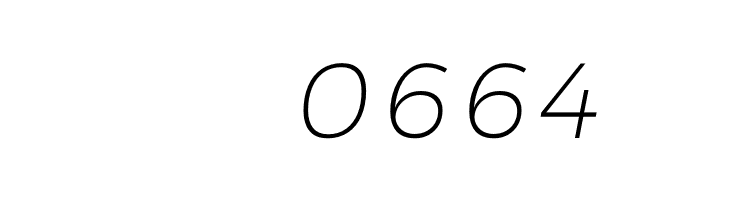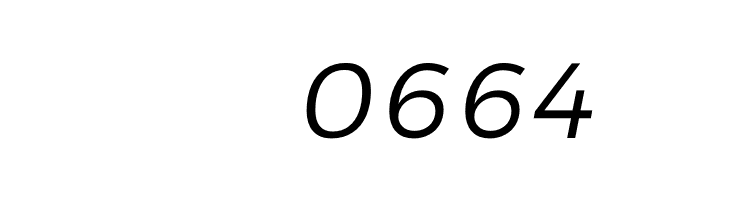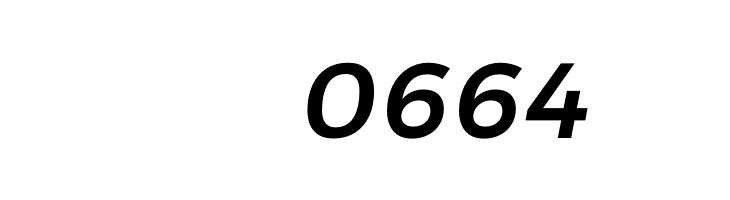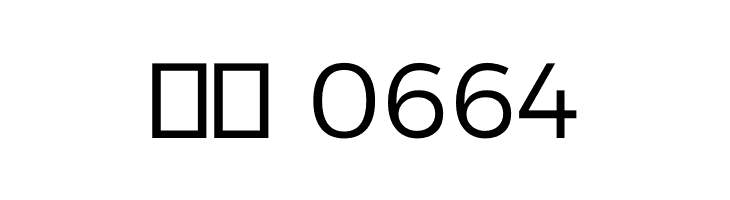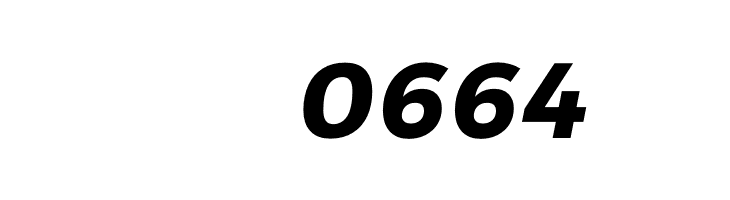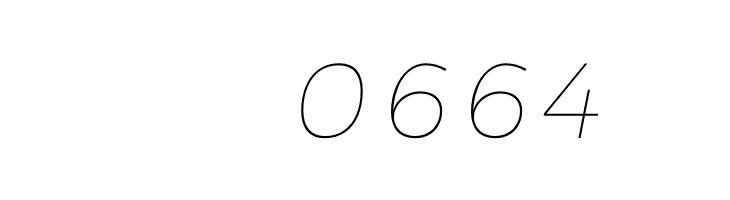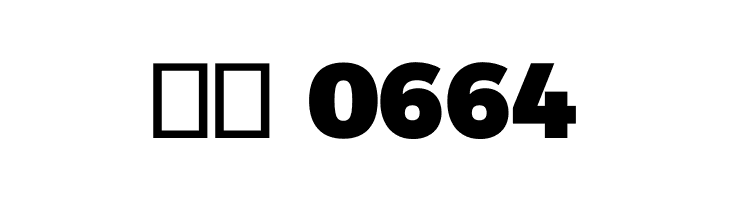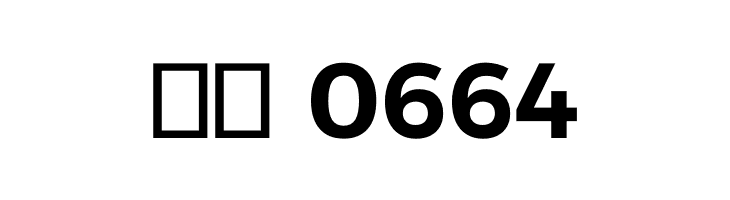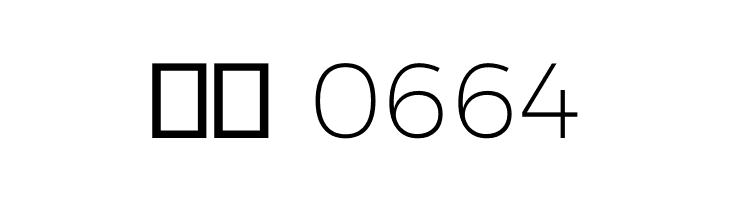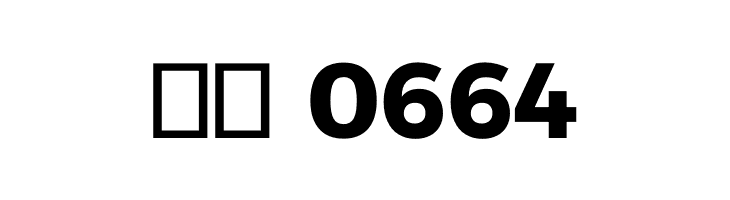
A modern, geometric font with tall, narrow characters and consistent stroke widths.
A bold, modern sans-serif font with strong geometric shapes.
A bold, italicized sans-serif font with a modern and dynamic style.
A bold, modern sans-serif font with strong, uniform strokes and excellent legibility.
A bold, italic, modern sans-serif font with a clean and dynamic style.
A bold, modern sans-serif font with thick strokes and strong presence.
A bold, italicized sans-serif font with a modern and dynamic style.
A clean, modern sans-serif typeface with uniform stroke widths and balanced design.
A sleek, modern sans-serif font with an extra light, italic style.
A modern, italic sans-serif font with clean lines and balanced spacing.
A modern, light sans-serif font with clean lines and excellent readability.
A modern, light, italic sans-serif font with clean lines and low contrast.
A modern, geometric sans-serif font with balanced proportions and clear numerals.
A modern, medium-weight sans-serif italic font with clean lines and a slightly condensed form.
A modern sans-serif font with a semi-bold weight, offering clarity and professionalism.
A sleek, modern semi-bold italic typeface with clean lines and smooth curves.
A thin, modern sans-serif font with a clean and minimalist design.
A modern, thin, italic sans-serif font with a sleek and elegant style.